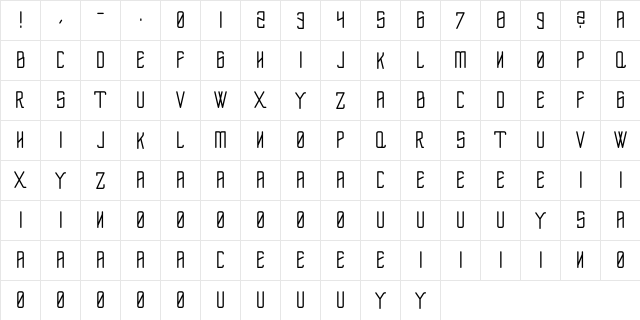
Flexus Regular Font Preview
Flexus Regular
Flexus Regular Font Details
| Designer | Kai Gehrke |
Design Context for Flexus Typeface
Flexus offers clean, dependable letterforms without strong stylistic allegiance, making it a practical choice for designers who need flexibility.